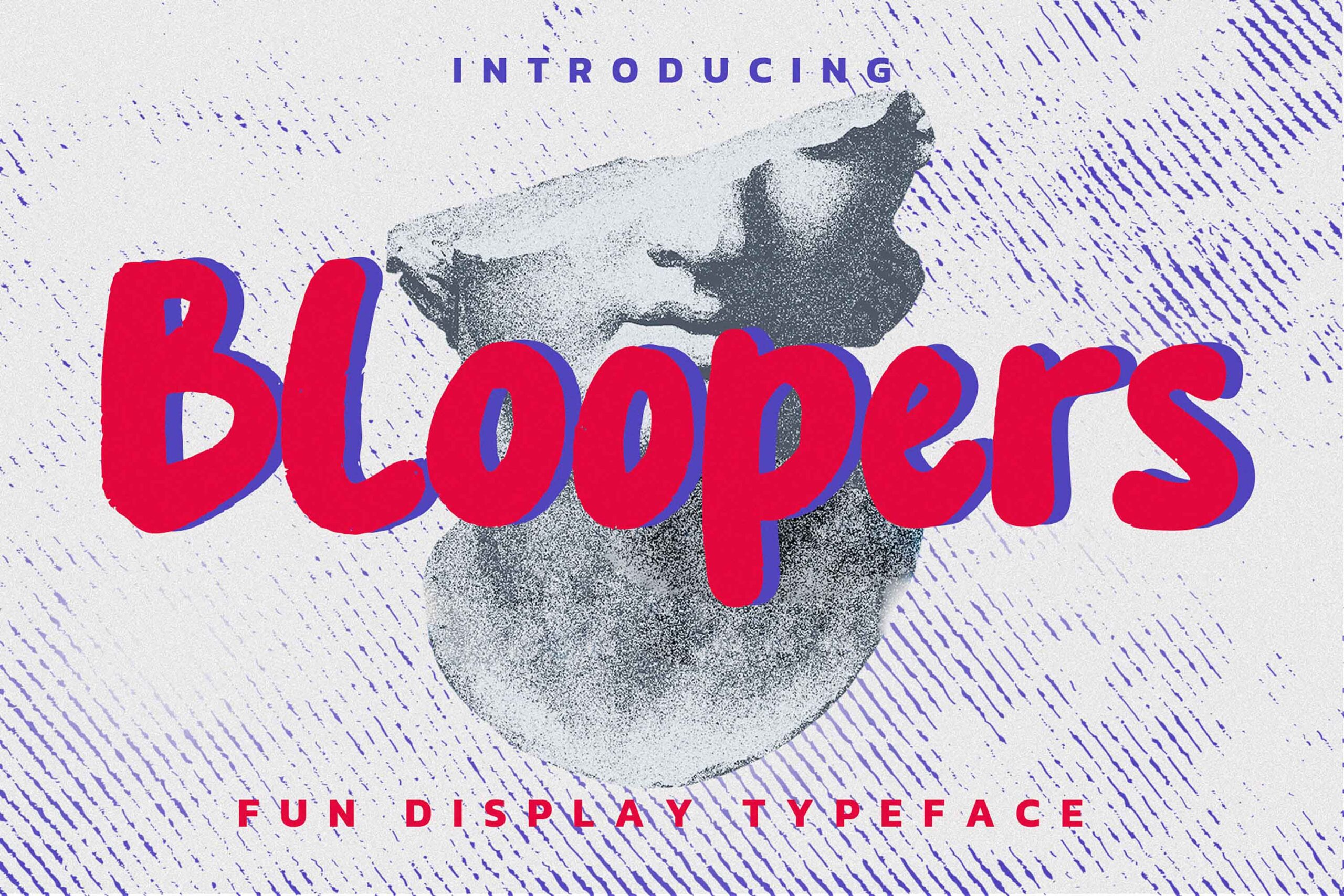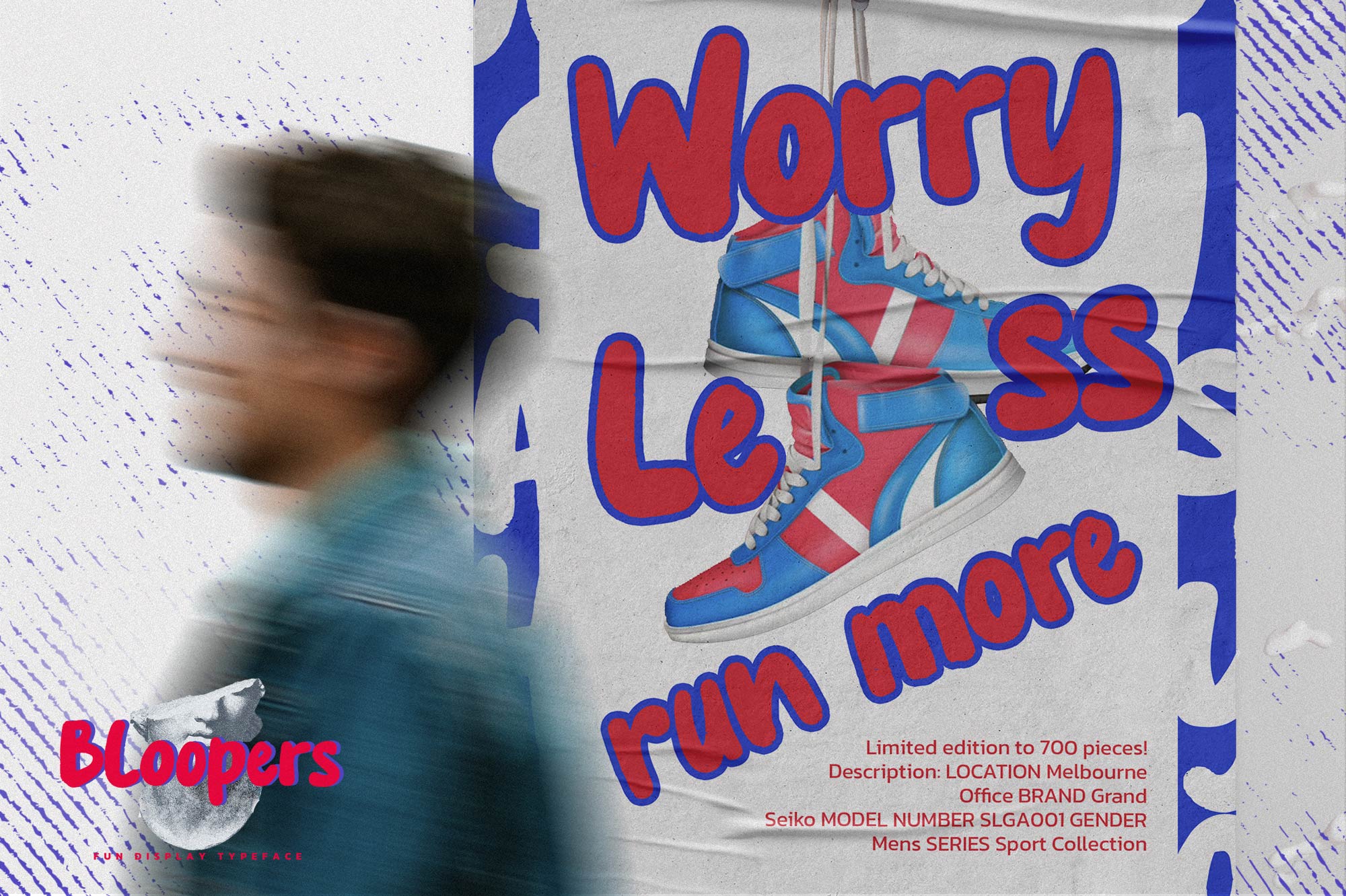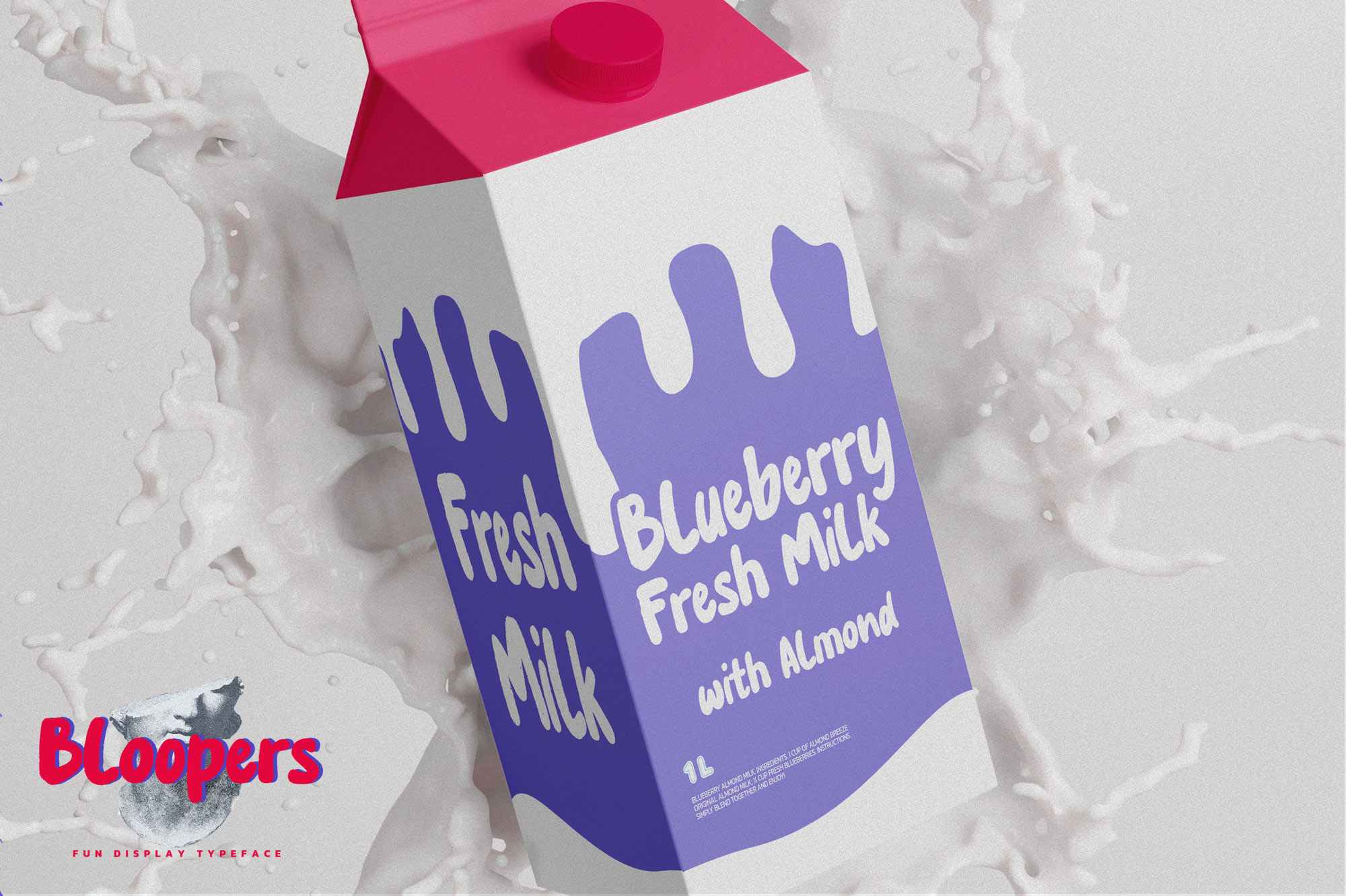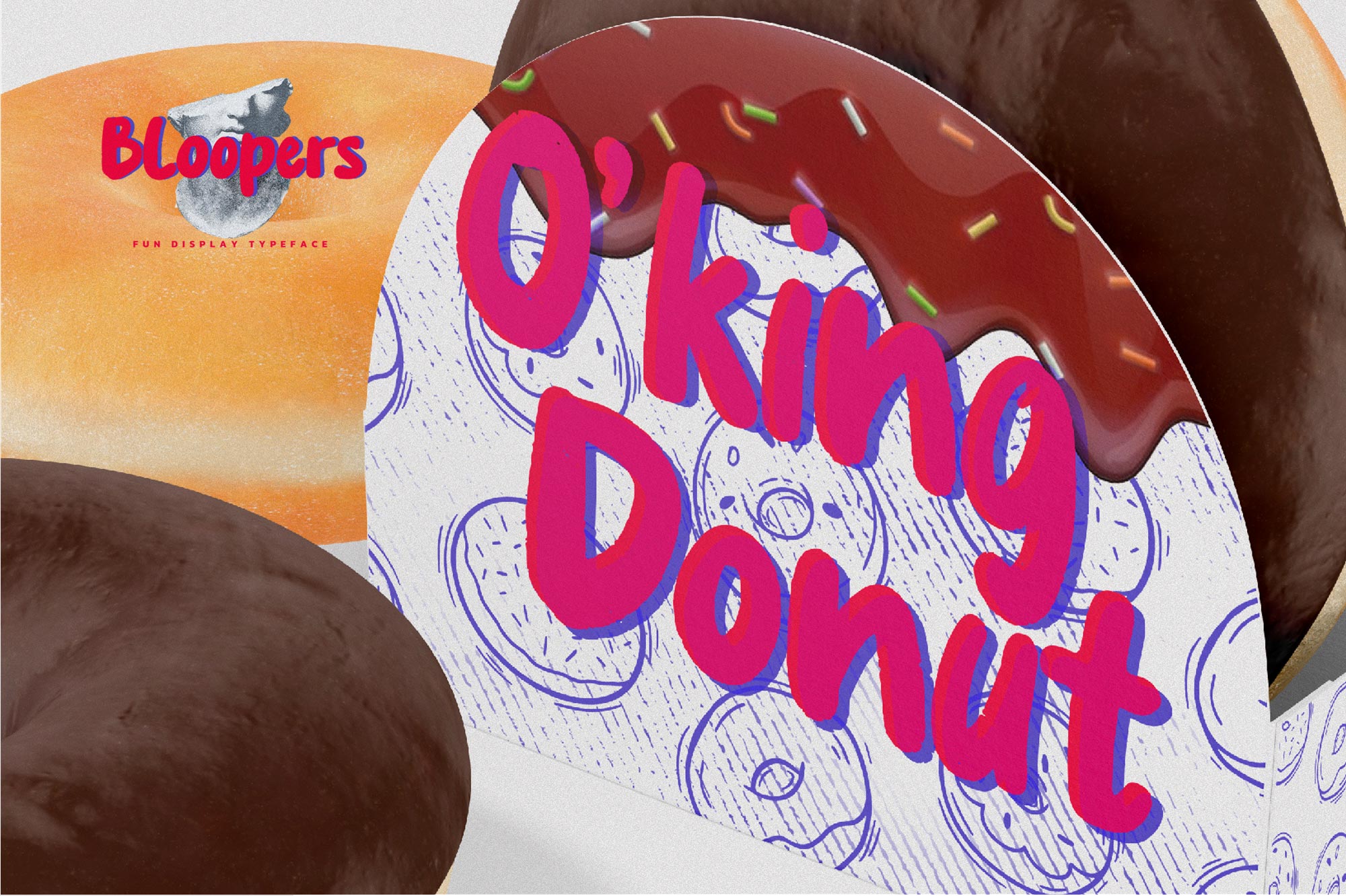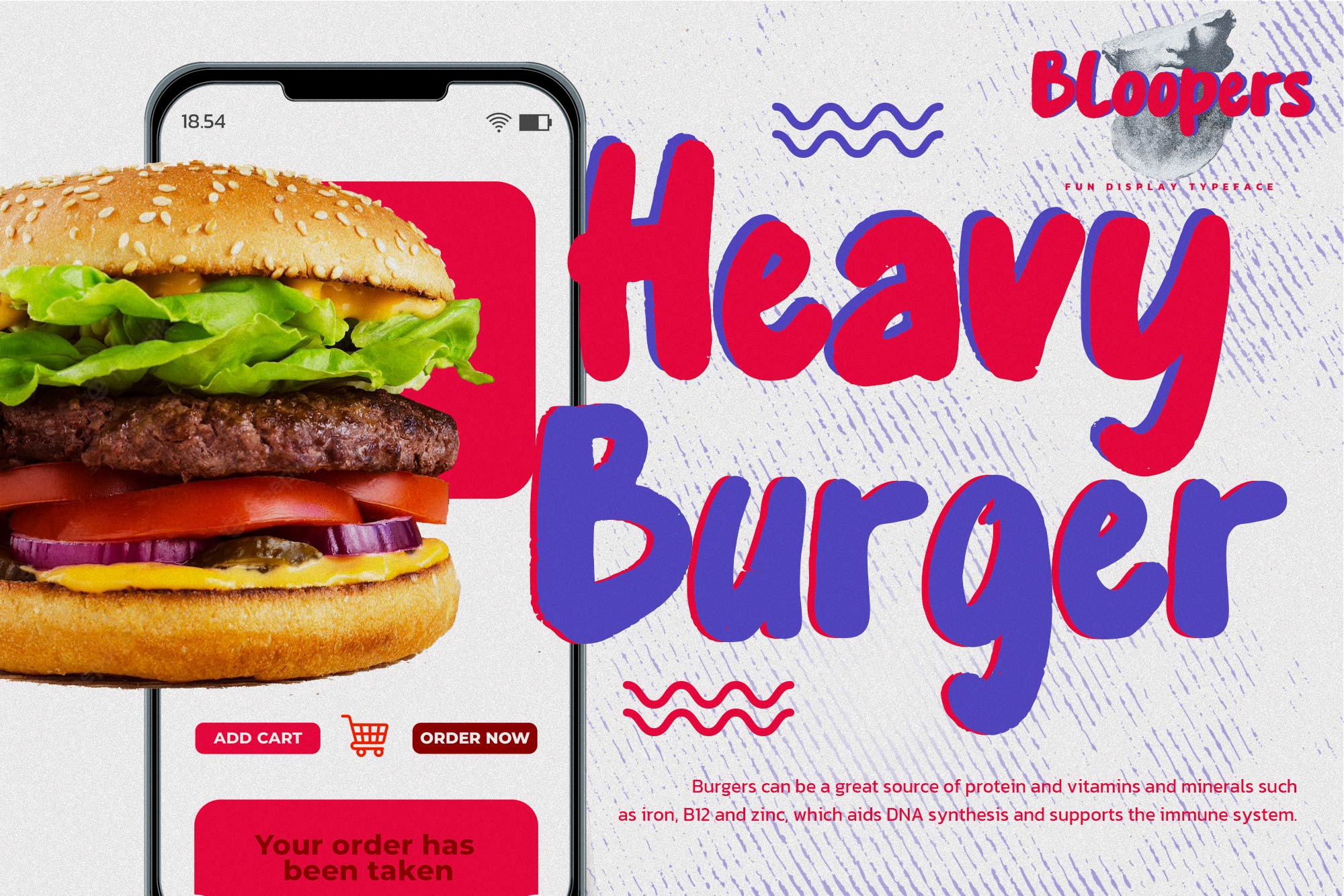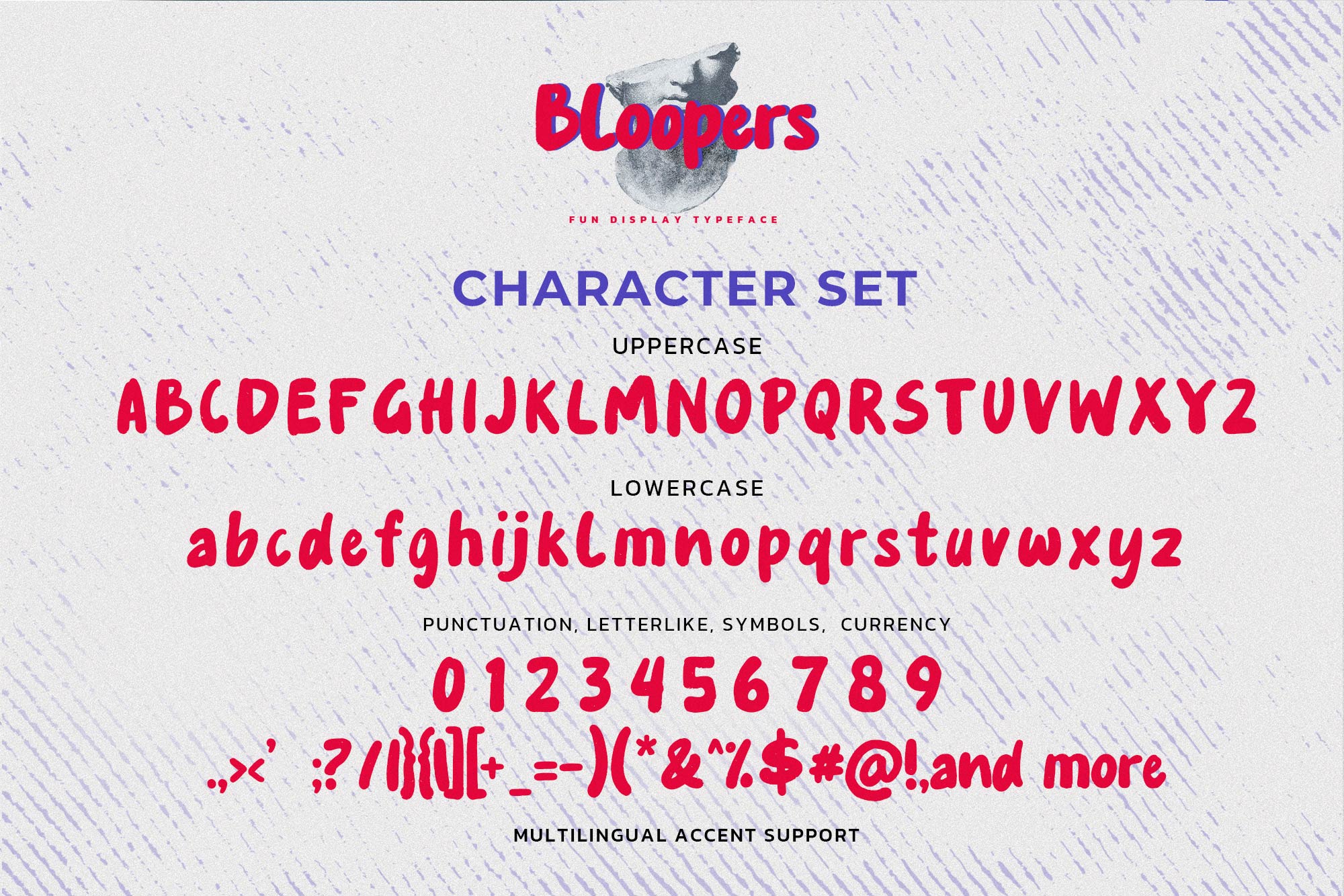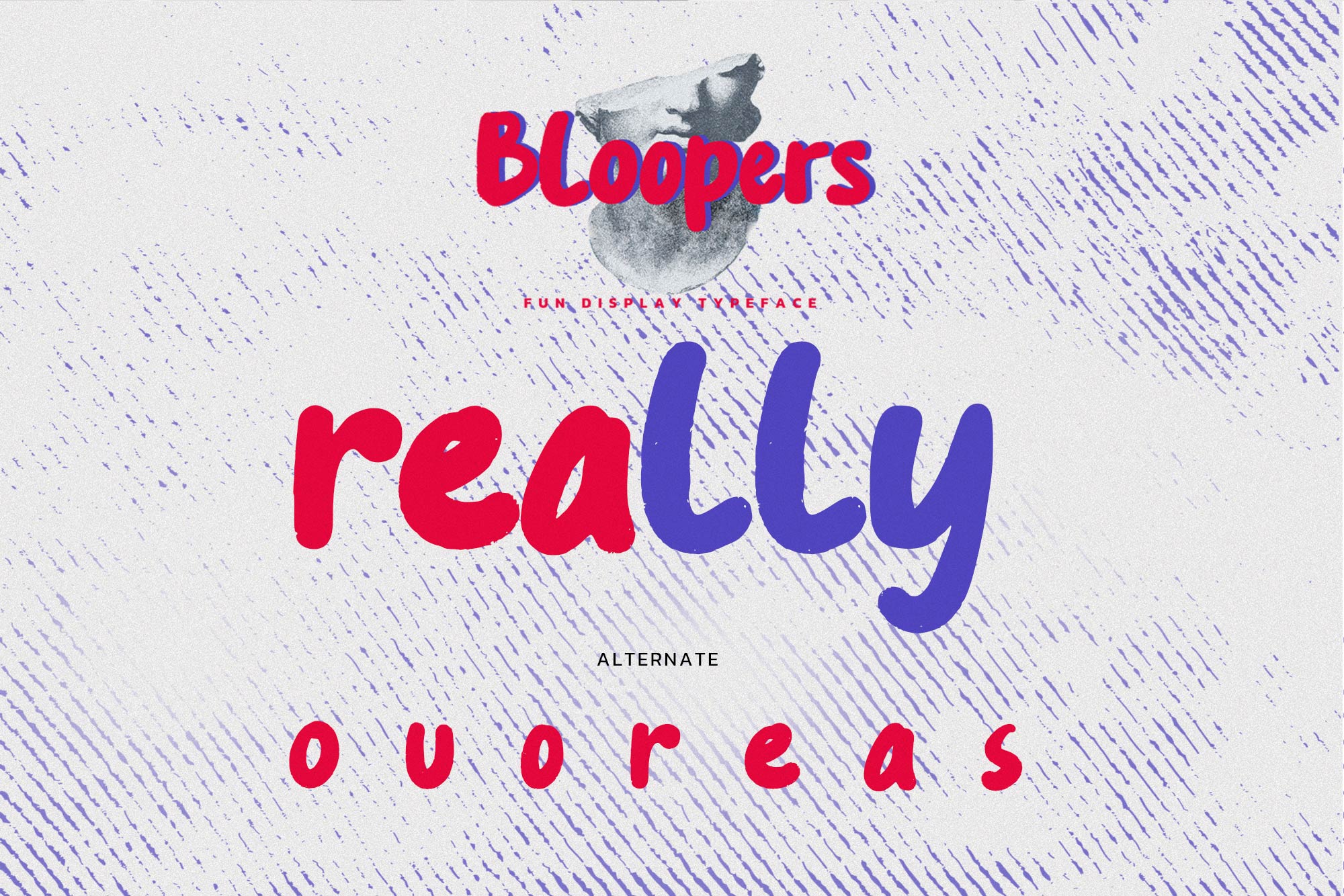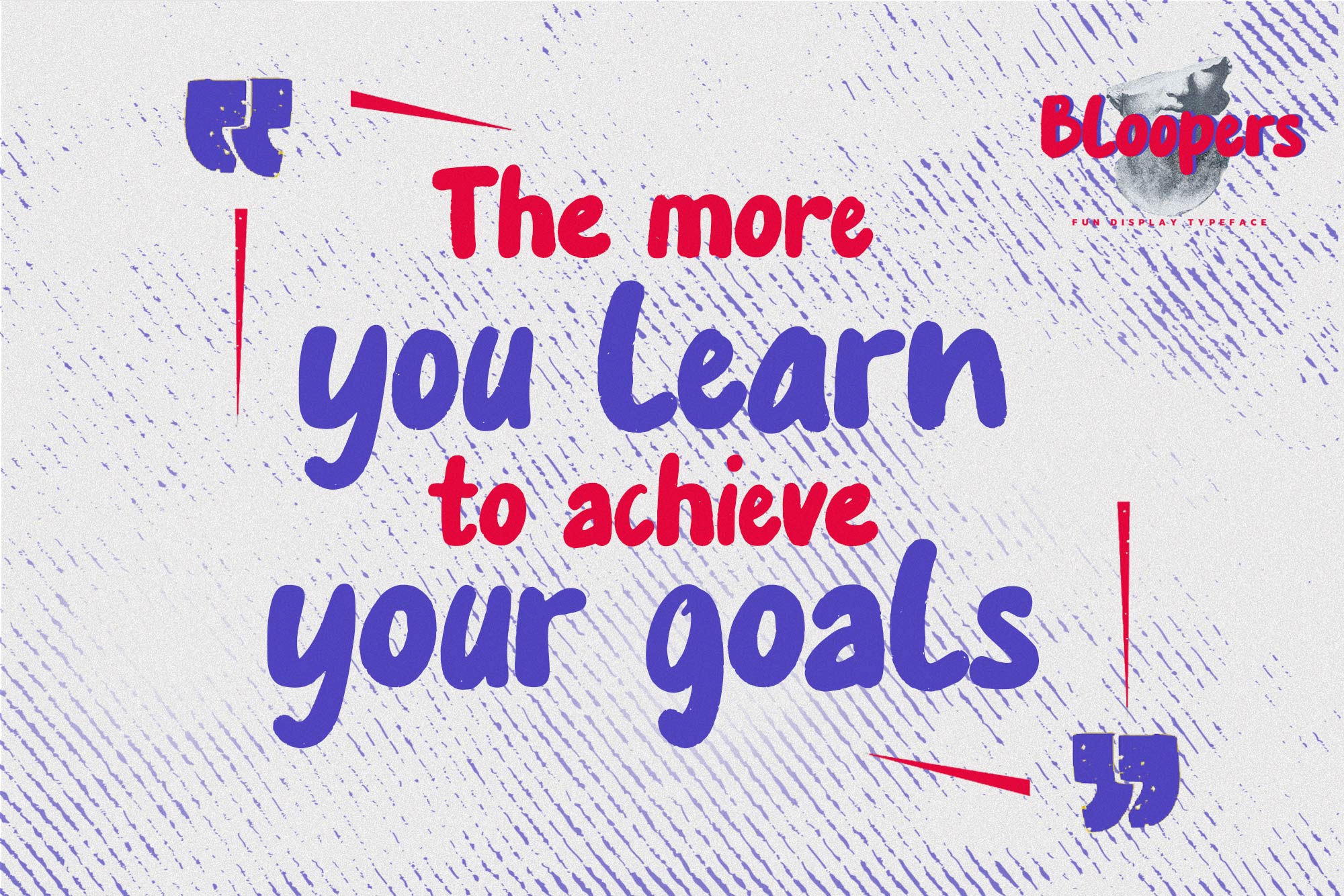
Bloopers – Fun Display Typeface , modern style and dramatic movement that is written casually and quickly.
The best for labels, poster, project designs look modern, authentic and fun. It’s perfect for labels, quotes, posters, DIY projects, branding, packaging, greeting cards, websites, photography overlays, signs, scrapbooking, tags and so much more! That is why Bloopers has a textured, and authentic characteristic more natural look. You can activate Alternates glyphs OpenType panel.